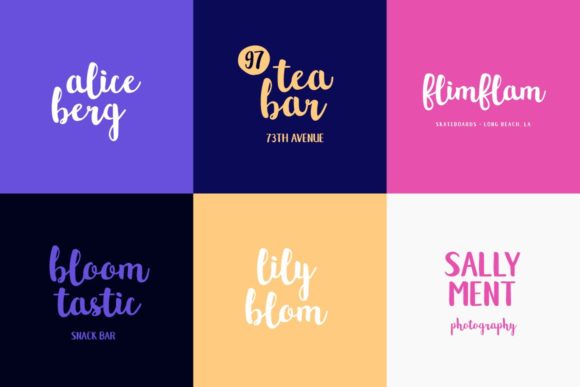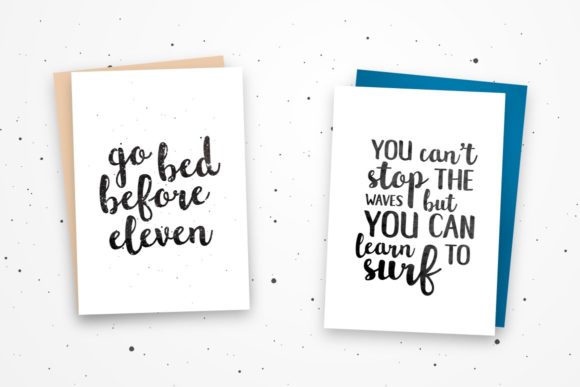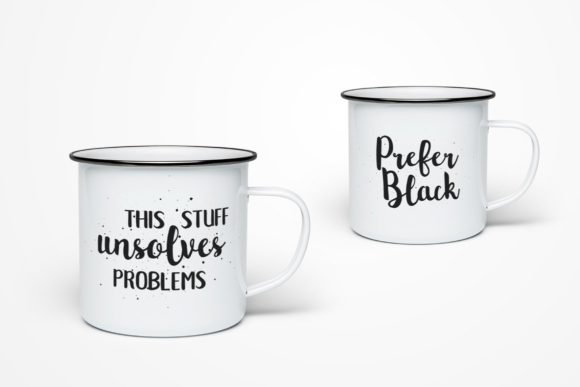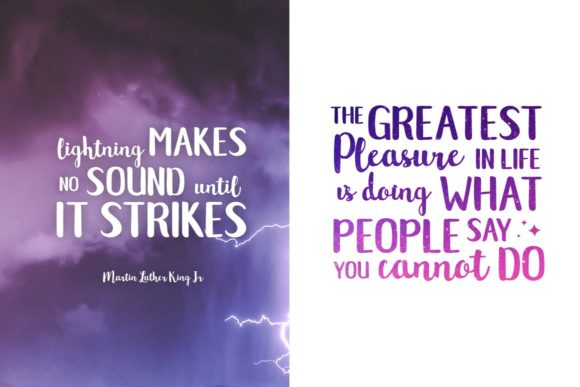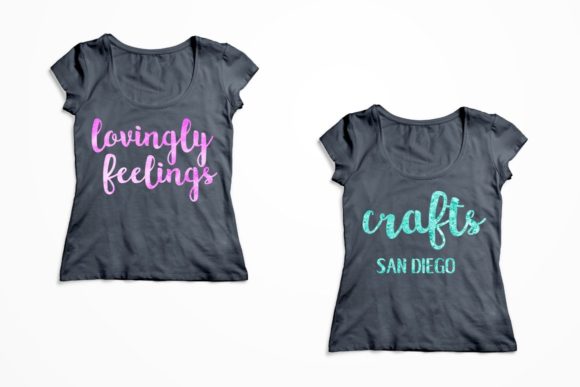
HomeScript FontsNorthern Lights Font Script Fonts Northern Lights Font FacebookXPinterestWhatsApp Northern Lights Font Poster 2 Northern Lights Font Poster 3 Northern Lights Font Poster 4 Northern Lights Font Poster 5 Northern Lights Font Poster 6 About Northern Lights Font Northern Lights is a sweet and playful script that will help you create amazing and extraordinary crafts. DOWNLOAD NOW People also explored Jungle Queen Font Dellmonte Duo Font Lemon Trifle Font Moonchrist Holidays Font Fenway Park Beatone Font Norman Fat Samantha Font Thanksgiving Font 386 0 TagsNorthern Lights Font Previous articleHelena FontNext articleHello Stockholm Font LEAVE A REPLY Cancel reply Comment: Please enter your comment! Name:* Please enter your name here Email:* You have entered an incorrect email address! Please enter your email address here Website: Save my name, email, and website in this browser for the next time I comment. Personal Use Free Milda Personal Use Free Read more about this font Rakesly Personal Use Free Read more about this font A New Nattyla Personal Use Free Read more about this font Sunshine Tropical Font Personal Use Free Read more about this font BLOG To increase your work productivity, choose the most readable fonts. In today's fast-paced work environment, where digital communication and information consumption are integral to our daily routines, the choice of fonts can significantly impact... The 10 Best Handwriting Fonts to Add Personality to Your Designs Transform Your Website: Elevate Your Typography with 7 Best Web Font Generators Elegant Wedding Invitation Fonts – Handwritten & Script Fonts